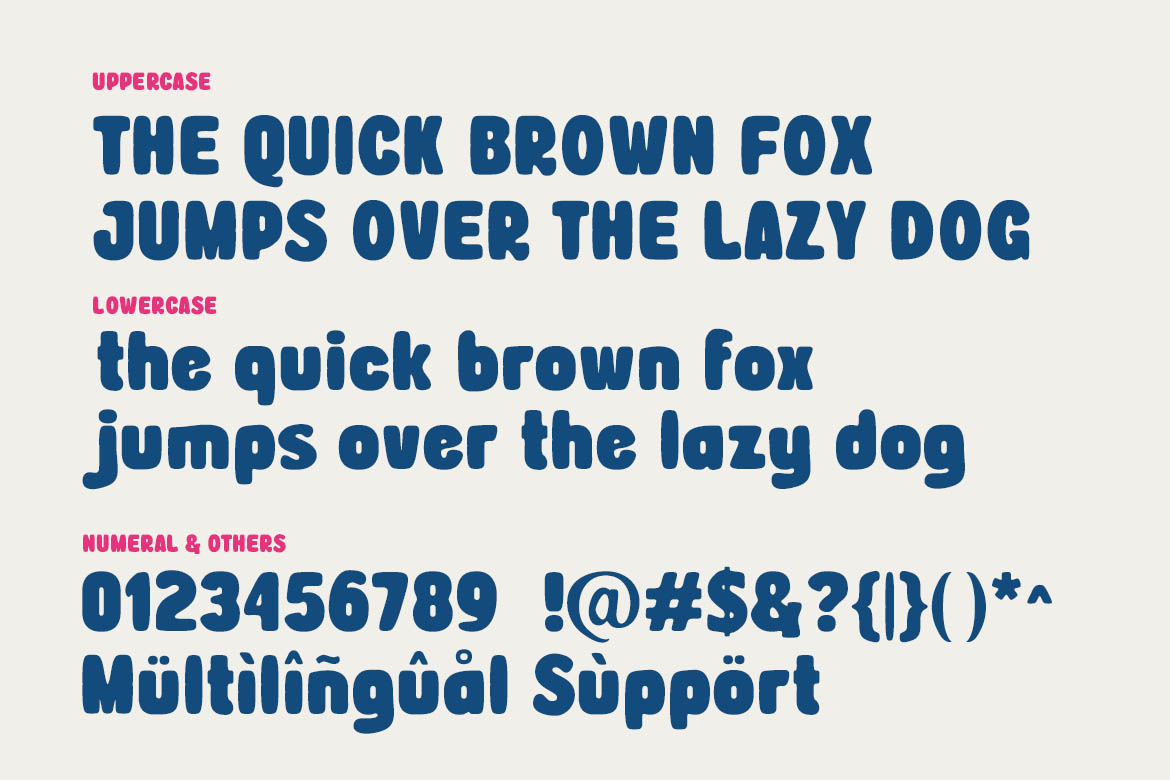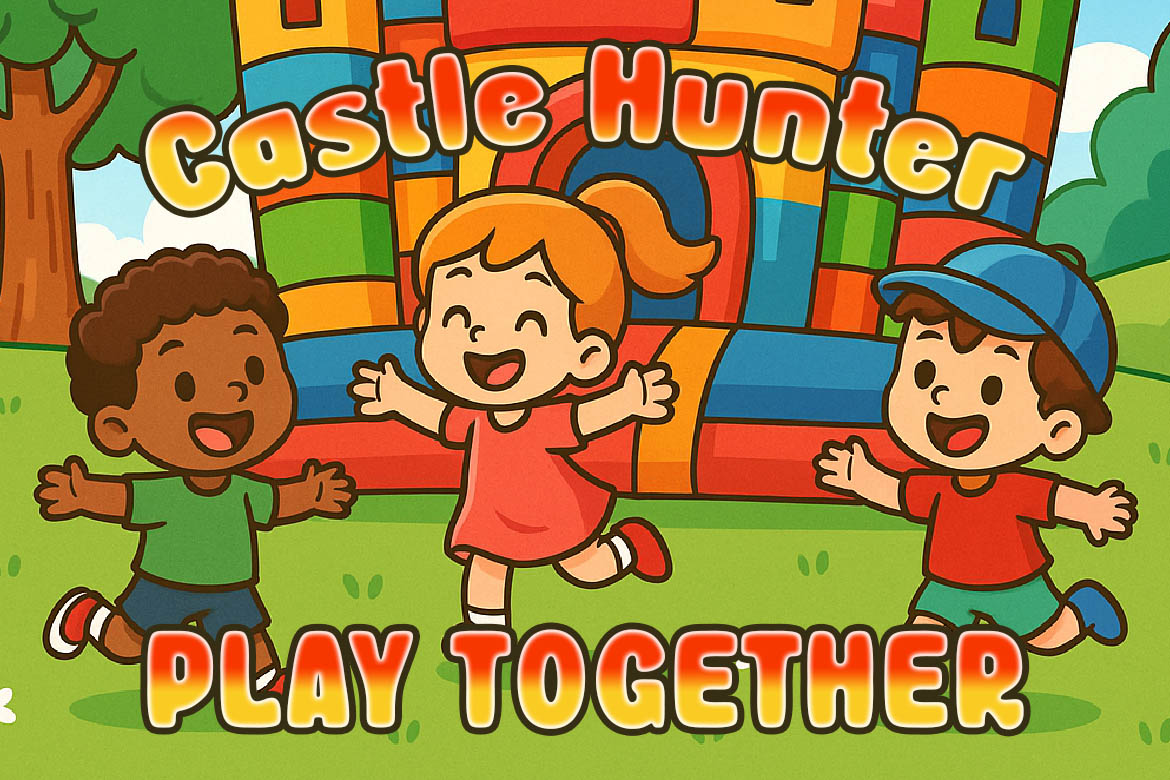
Play Game - Playful Font
Play Game is a chunky, bouncy, and playful display font that brings joy and energy to your design projects. With its rounded, bold letterforms and childlike charm, this font is perfect for kids’ games, school posters, cartoons, mobile apps, YouTube thumbnails, or any fun-themed branding. Designed to grab attention while staying friendly and readable, Play Game is ideal for both print and digital media.